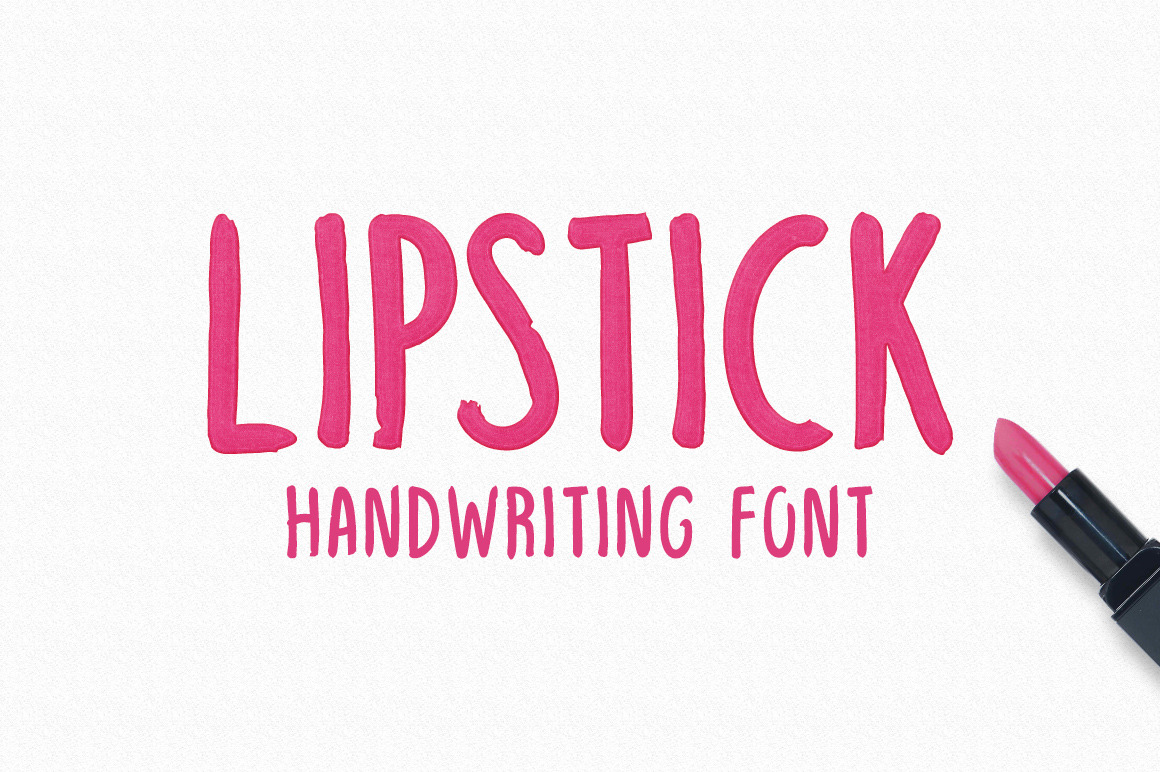
Lipstick Handwriting Font
This handwriting font has been created in the style of lipstick writing on a glass surface, perfect for love notes and personal messages. The letterforms are condensed sans-serif and it features a hand drawn aesthetic with bold, solid strokes.
Lipstick includes all uppercase letters, numbers and a selection of accented european letters, common symbols and punctuation. It is well kerned and as a bonus, also features a hand drawn heart shape in place of the Asterisk (*) symbol.